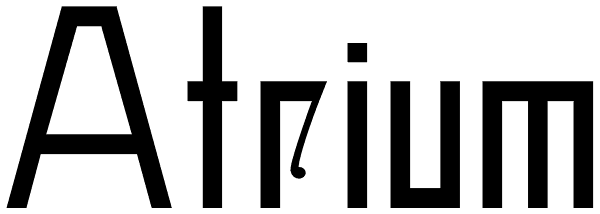
Atrium
Atrium, designed by Alex Jacque, is a strong, linear, geometric sans-serif display typeface based off century-old pen art by W.E. Dennis. Atrium's stubbornly geometric letterforms are set off with a few softening flourishes on a few glyphs. It's...